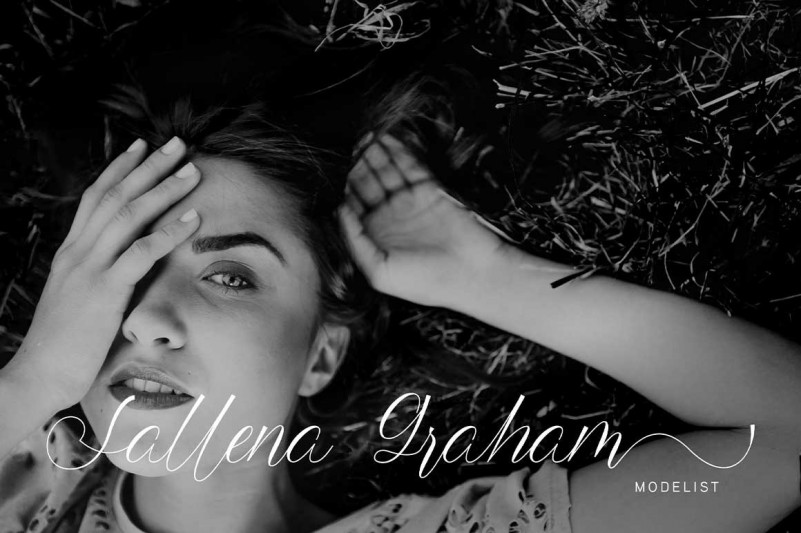
Beauty Signature Font
Beauty Signature Script Font, perfectly fit for branding, logo, wedding things, greeting cards, fashion, lookbook, marketing promotion, anytime you want to look fancy elegant but still casual.